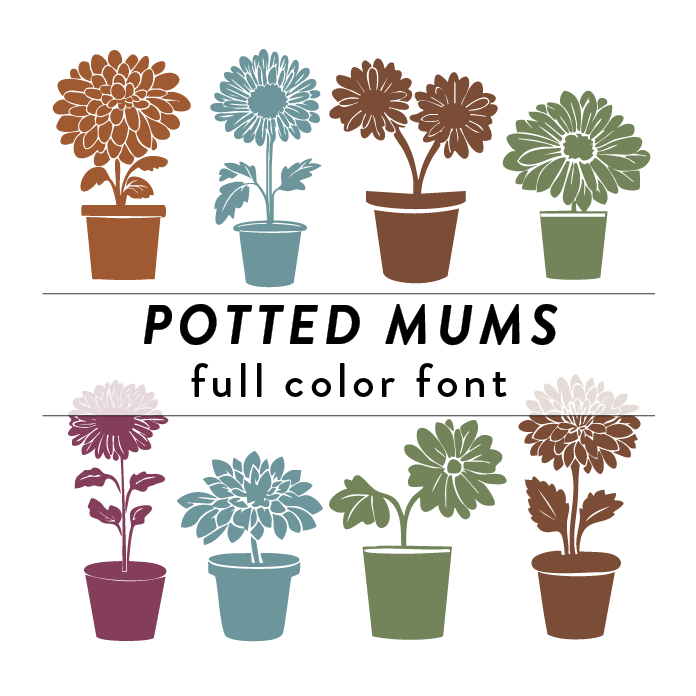
Potted Mums Full Color Font is a whimsical and vibrant font design inspired by autumn flowers. The font features intricate floral patterns in full color, perfect for adding a touch of nature to any craft project. Its unique style makes it ideal for creating eye-catching designs for invitations, greeting cards, and more. Perfect for adding a pop of color and charm to any creative project. This font is a OTF craft font that will appear in color only when used with the silhouette software.